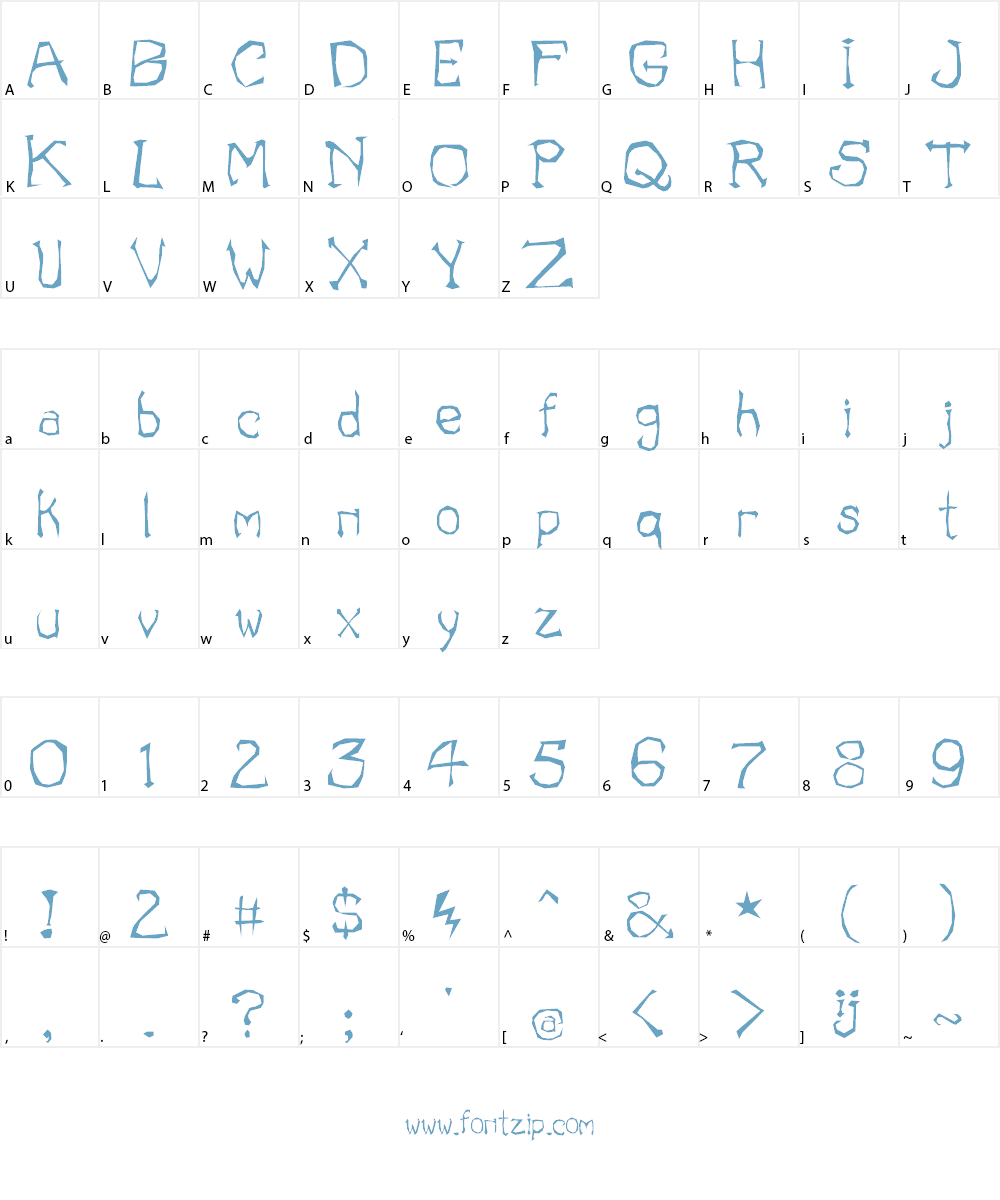
"Design" may not be the right word for this. I whipped up this entire font in about 5 hours. Most characters took me about 30 seconds to make - is this a speed record? Anyway, i thought the font didn't even look THAT bad when i had finished it. There are tons of fonts out there which are *a lot* uglier than this one, and quite often you even have to pay for those!